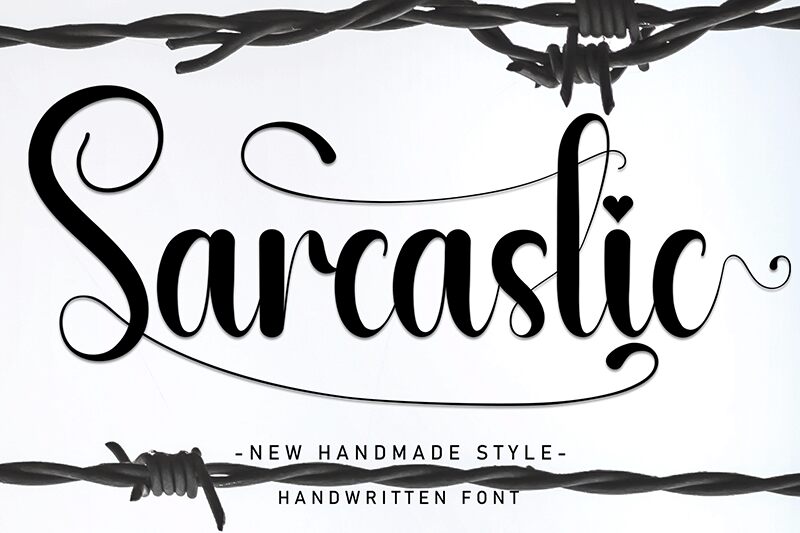
Sarcastic
Sarcastic font designed by Andi Moz is a free calligraphy font that shines beautifully with every letter. An elegant and flowing style with perfect connections between each character is guaranteed to add a decorative and expressive touch to texts. And although its modern casual script mimics handwriting, it appears flawless and without error.
This high-end display font can be used for logos, apparel items, cosmetics packaging, poster designs, stickers, and even pins. Present your alt band with a new Tumblr page featuring the title in Sarcastic or give the right boost you need to your online platform by decorating the homepage.